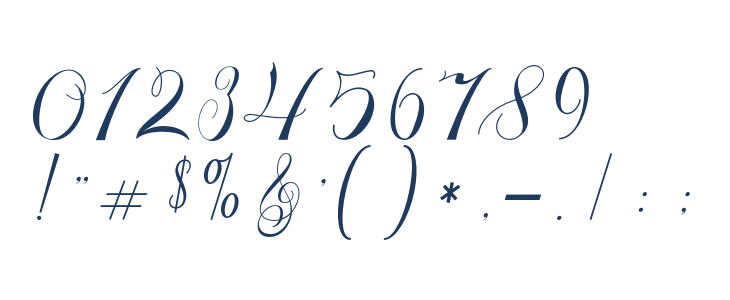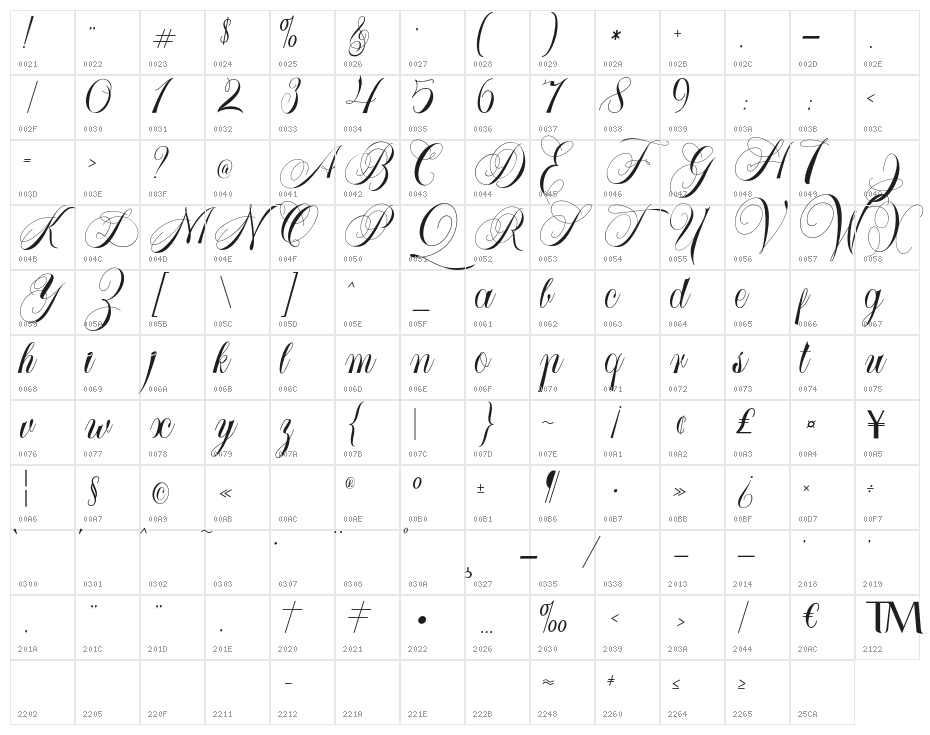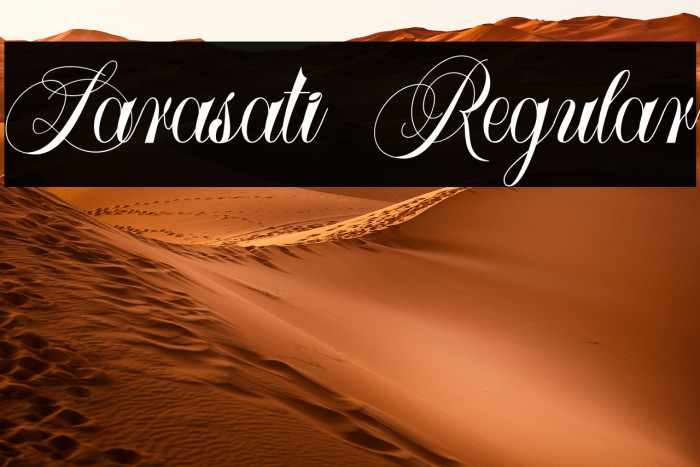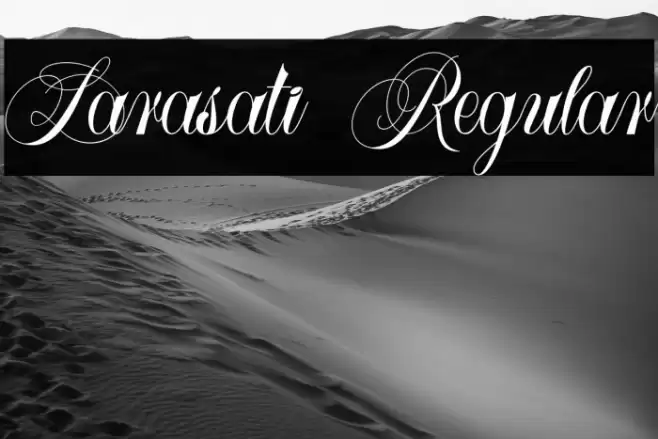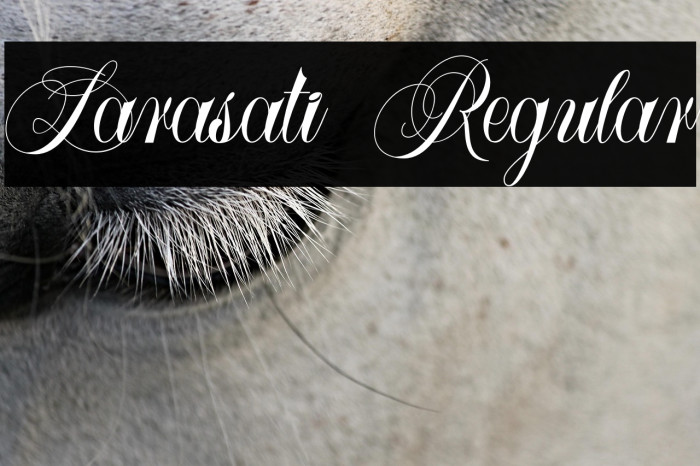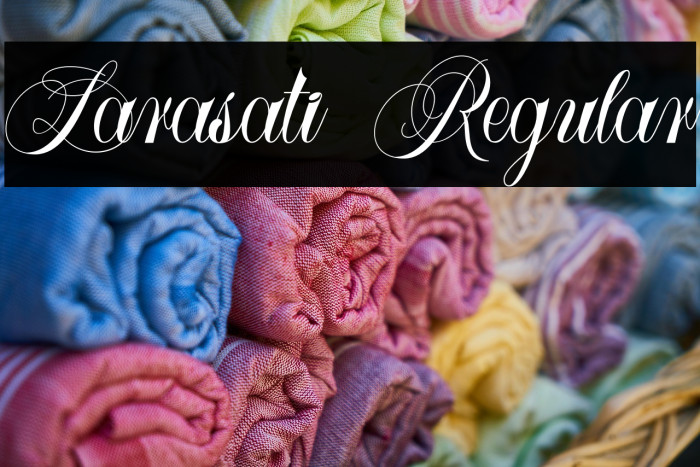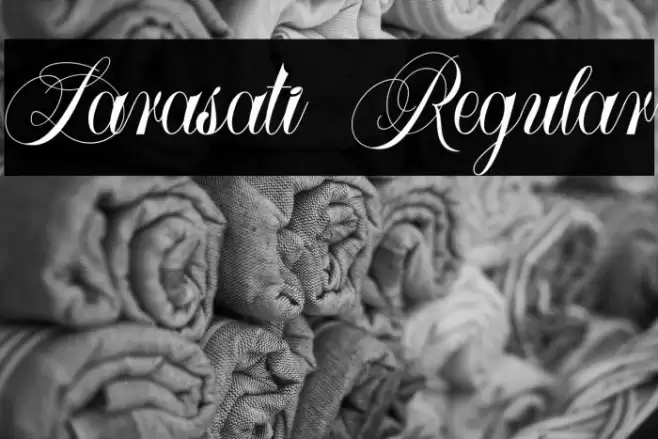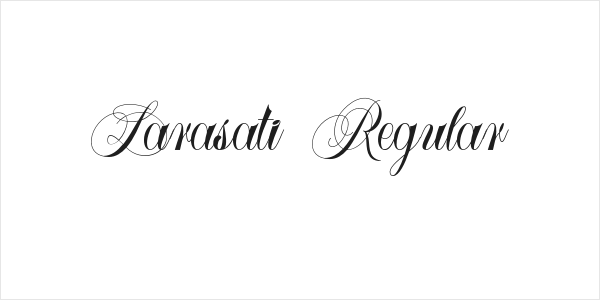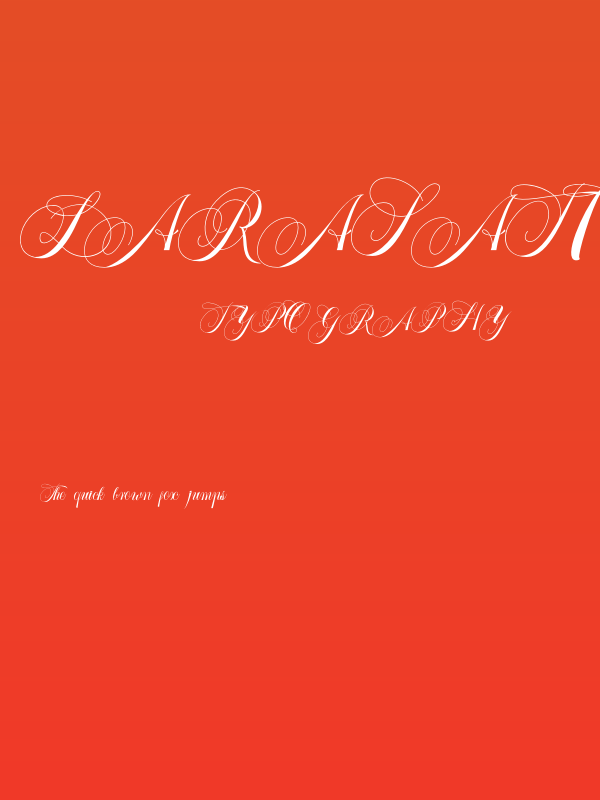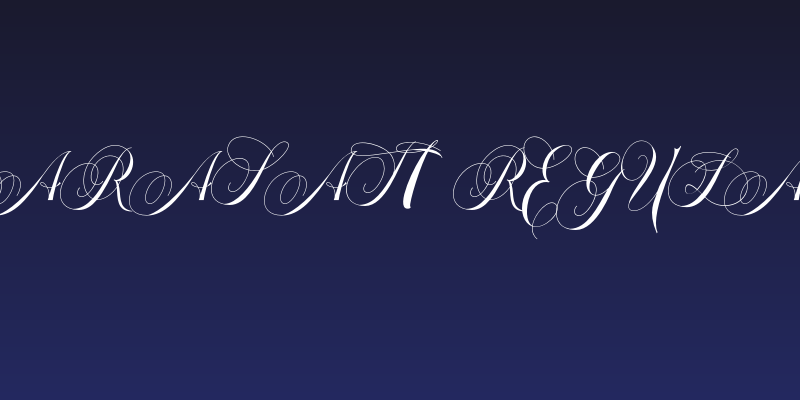
Larasati Regular Font
Larasati Regular Description
This elegant script font features a sophisticated and flowing design, with intricate loops and flourishes that give it a highly decorative appearance. The uppercase letters are particularly ornate, showcasing elaborate swirls and curls that add a touch of luxury and refinement. The lowercase letters maintain a graceful continuity, with smooth, connected strokes that enhance readability while preserving the font's artistic flair. The numerals and special characters are equally stylized, ensuring a cohesive look across all text elements. This font is perfect for projects that require a touch of elegance and sophistication.